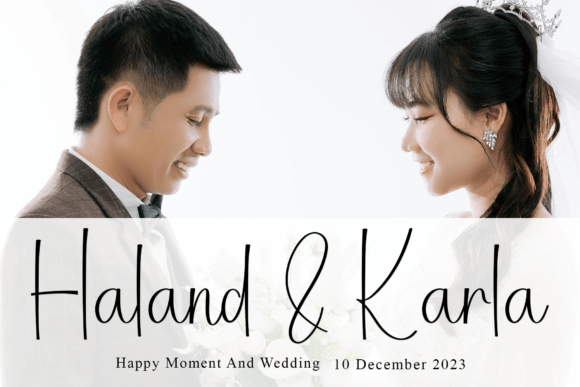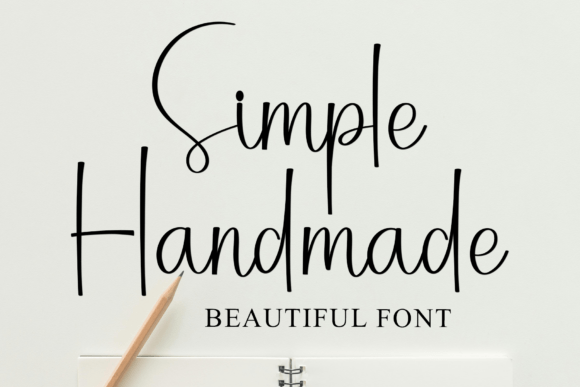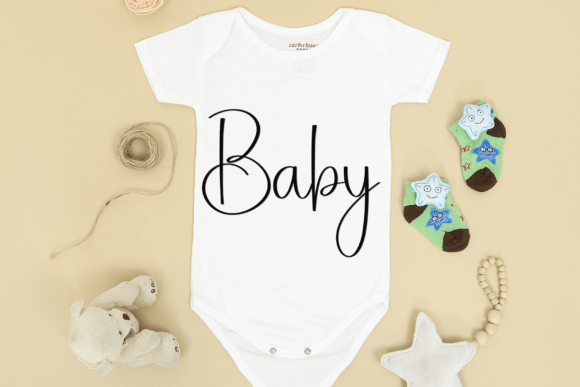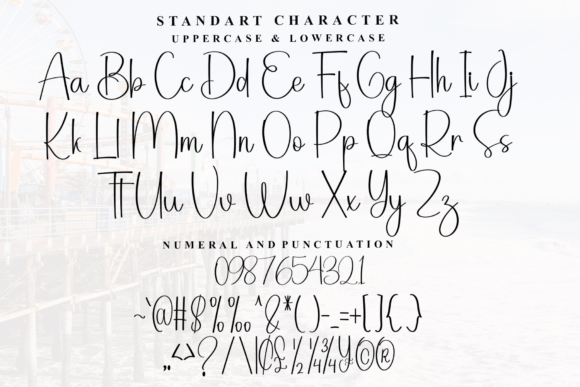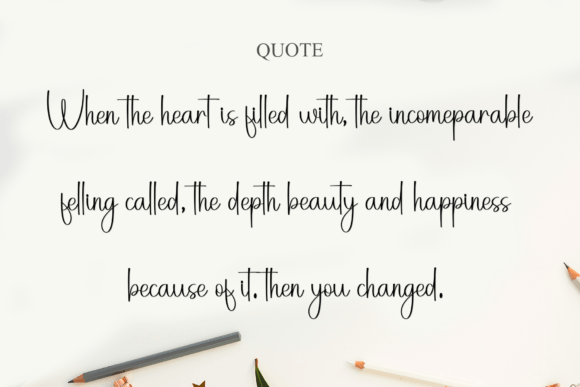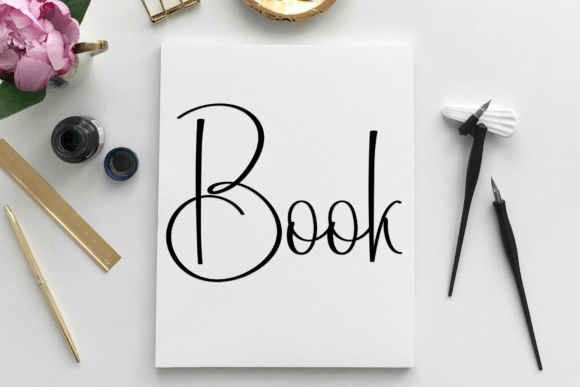
Introduction to Holiday Adventure Font
As a designer, have you ever been working on a project and suddenly, the perfect font pops up in your mind, bringing your entire concept to life? It’s that magical moment when everything falls into place, and your creative vision starts to take shape. For me, that moment happened when I stumbled upon the Holiday Adventure Font – a stunning handwritten font that exudes elegance and sophistication.
This exquisite font is a masterclass in design, blending classic calligraphic influences with a modern, fresh feel. Whether you’re working on a free download project or a high-end design, the Holiday Adventure Font is sure to elevate your creative project to new heights. With its transparent background and high-quality design, it’s a versatile design resource that’s perfect for any designer looking to add a touch of whimsy and charm to their work.
Key Features of Holiday Adventure Font
- High-quality font design for creative projects, ideal for posters, greeting cards, and other holiday-themed materials
- Features a large character set, including uppercase and lowercase letters, numbers, and punctuation marks, making it suitable for various text-based applications
Honest Review: Holiday Adventure Font
One of the standout features of this font is its high quality. The lines are crisp, the letters are smooth, and the overall design is incredibly well-executed. It’s perfect for adding a touch of whimsy to your design without looking too kitschy.
The font comes with a transparent background, which makes it super easy to work with. I’ve used it for everything from social media graphics to print designs, and it always looks great.
Here are some of the things that work well with this font:
- ✨ High quality design that’s perfect for creative projects
- ✨ Transparent background makes it easy to work with
As with any font, there are some limitations to consider:
- ⚠️ Limited character set, may not be suitable for long-form text
Overall, I’m really impressed with the Holiday Adventure Font. It’s a fantastic design resource that’s perfect for adding a touch of holiday cheer to your creative projects.
To get the most out of the Holiday Adventure Font, experiment with different font sizes, colors, and combinations to create unique and eye-catching designs.
The Holiday Adventure Font is ideal for creating festive and adventurous designs, such as:
- Christmas and New Year’s Eve graphics
- Travel and adventure posters
- Summer and winter sports graphics